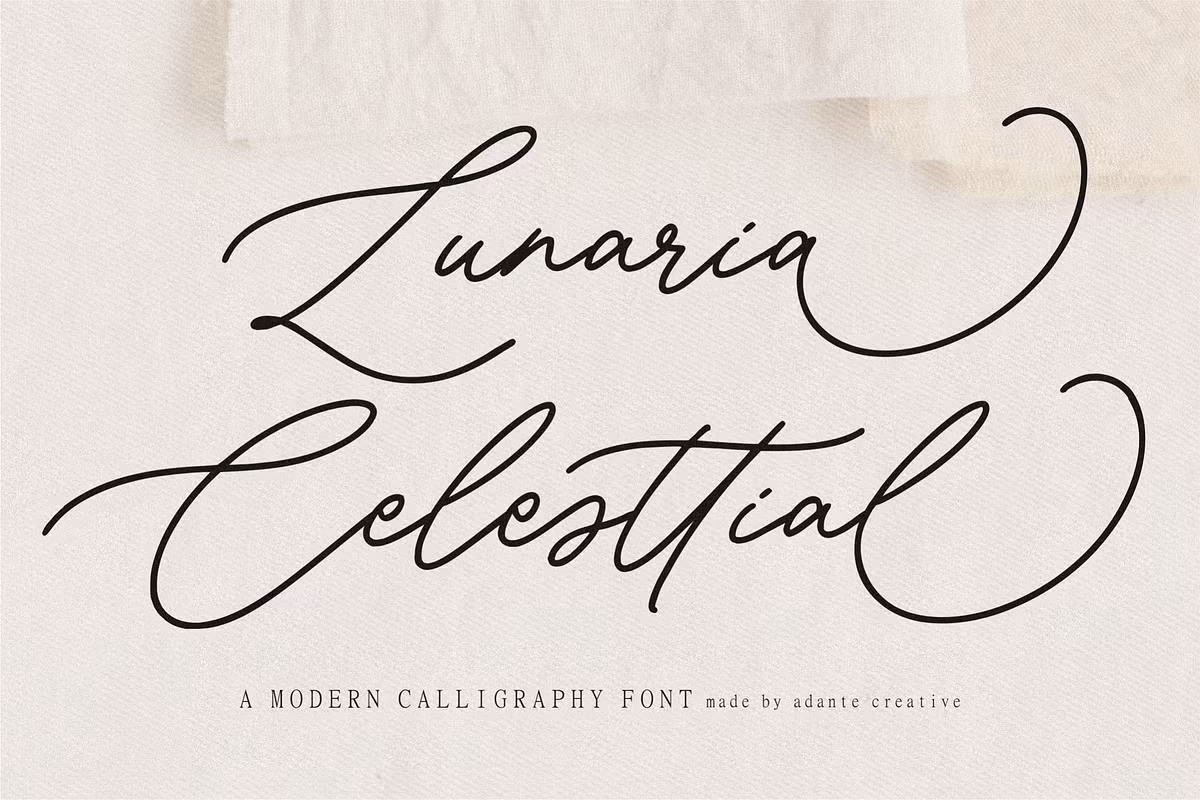
Lunaria Celestial Font Free Download is a whimsical and enchanting typeface that captures the mystery and beauty of the cosmos. With its delicate curves, ethereal strokes, and celestial-inspired design, this font is perfect for creating dreamy, mystical designs, such as astrology-themed branding, event invitations, spiritual content, book covers, and more.
Its elegant and flowing style evokes a sense of wonder, making it ideal for projects that need a touch of magic and grace. Whether you're working on a dreamy logo, a mystical poster, or any creative piece that requires a celestial touch, Lunaria Celestial offers a unique, enchanting feel.